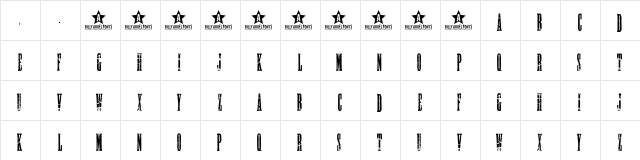
NIGHT STALKER TRIAL
| Foundry | Billy Argel |
| Designer | Billy Argel |
Design Context for NIGHT STALKER Typeface
NIGHT STALKER is a composed and adaptable typeface that performs quietly and consistently across a wide range of design contexts.